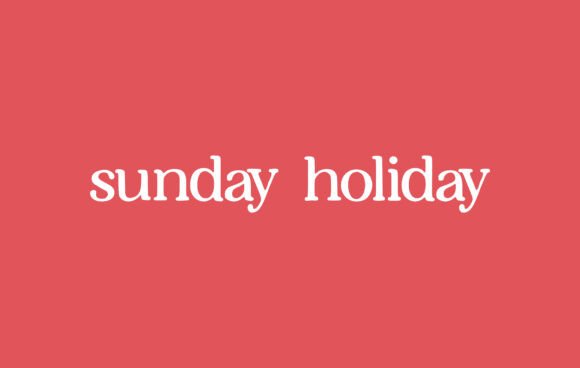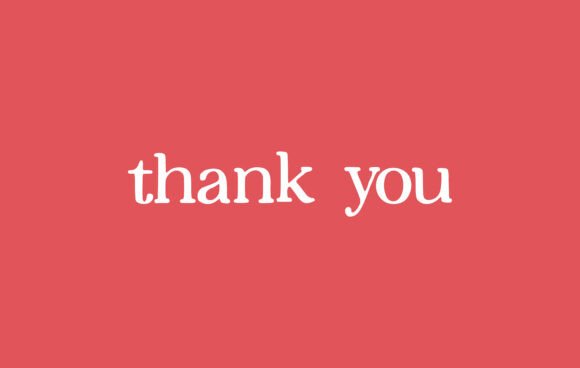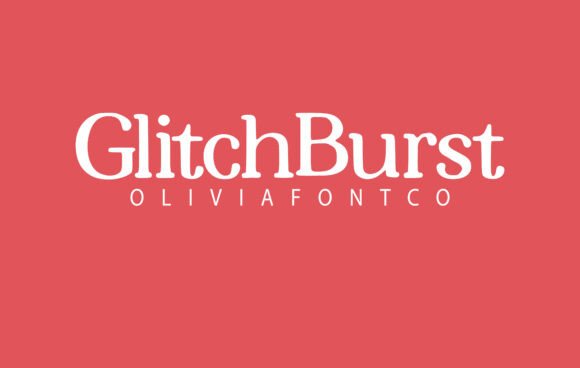
Introducing Glitchburst Font: Elevate Your Designs with a Romantic Touch
Are you tired of using the same old fonts in your designs? Look no further! Glitchburst font is here to revolutionize your creative projects with its authentic handwritten style and romantic touch. This expertly designed font is sure to become a true favorite among designers and crafters, and for good reason.
The Perfect Blend of Style and Legibility
Glitchburst font boasts a unique blend of style and legibility, making it perfect for a wide range of design applications. Whether you’re looking to create eye-catching magazine headlines, engaging social media posts, or beautiful wedding invitations, this font has got you covered. Its romantic touch adds a touch of elegance and sophistication to any design, making it ideal for branding, cards, and more.
What Makes Glitchburst Font Stand Out?
- Authentic Handwritten Style: Glitchburst font is designed to mimic the look and feel of handwritten text, giving your designs a personal and human touch.
- Romantic Touch: The font’s romantic touch adds a touch of elegance and sophistication to any design, making it perfect for wedding invitations, cards, and other special occasions.
- Legible and Versatile: Glitchburst font is highly legible, making it perfect for use as both title and body text. Its versatility ensures that it will look great in a variety of design applications.
With Glitchburst font, the design possibilities are endless! Here are just a few ideas to get you started:
- Magazine Headlines: Create eye-catching headlines that grab readers’ attention with Glitchburst font.
- Social Media Posts: Add a touch of elegance and sophistication to your social media posts with this beautiful font.
- Wedding Invitations: Make your wedding invitations truly special with Glitchburst font’s romantic touch.
- Branding: Use Glitchburst font to create a unique and memorable brand identity that sets you apart from the competition.
- Cards and Stationery: Create beautiful cards and stationery with Glitchburst font’s elegant and sophisticated style.
Why Choose Glitchburst Font?
So why choose Glitchburst font for your design projects? Here are just a few reasons:
- Unique and Authentic Style: Glitchburst font offers a unique and authentic handwritten style that will set your designs apart from the competition.
- Highly Legible: The font’s high legibility ensures that your designs will be easy to read and understand.
- Versatile: Glitchburst font is highly versatile, making it perfect for use in a wide range of design applications.
- Elegant and Sophisticated: The font’s romantic touch adds a touch of elegance and sophistication to any design, making it perfect for special occasions and high-end branding.
In conclusion, Glitchburst font is a must-have for any designer or crafter looking to elevate their designs with a romantic touch. Its authentic handwritten style, legibility, and versatility make it perfect for a wide range of design applications. Whether you’re looking to create eye-catching magazine headlines, beautiful wedding invitations, or unique branding, Glitchburst font is the perfect choice. So why wait? Download Glitchburst font today and take your designs to the next level!